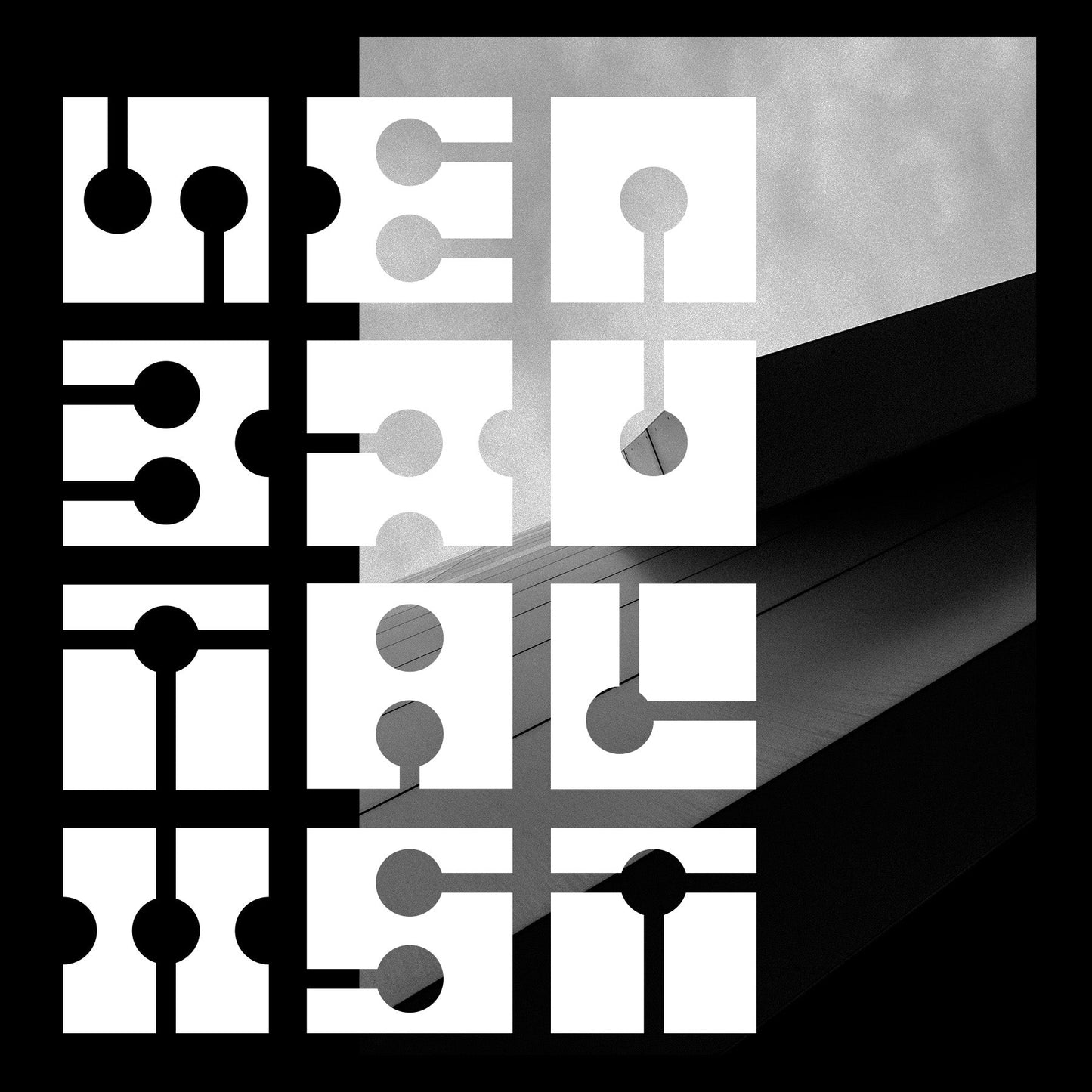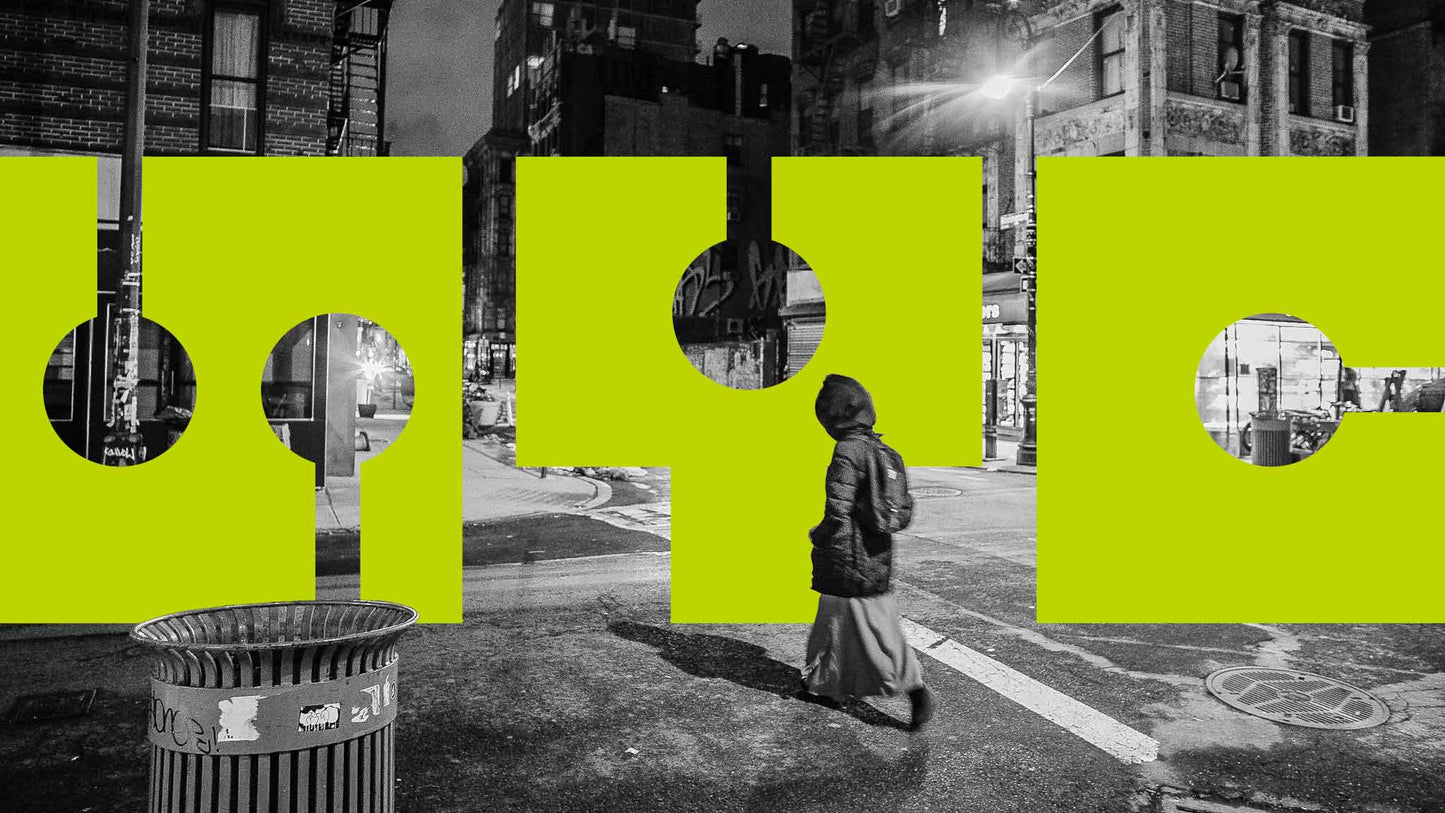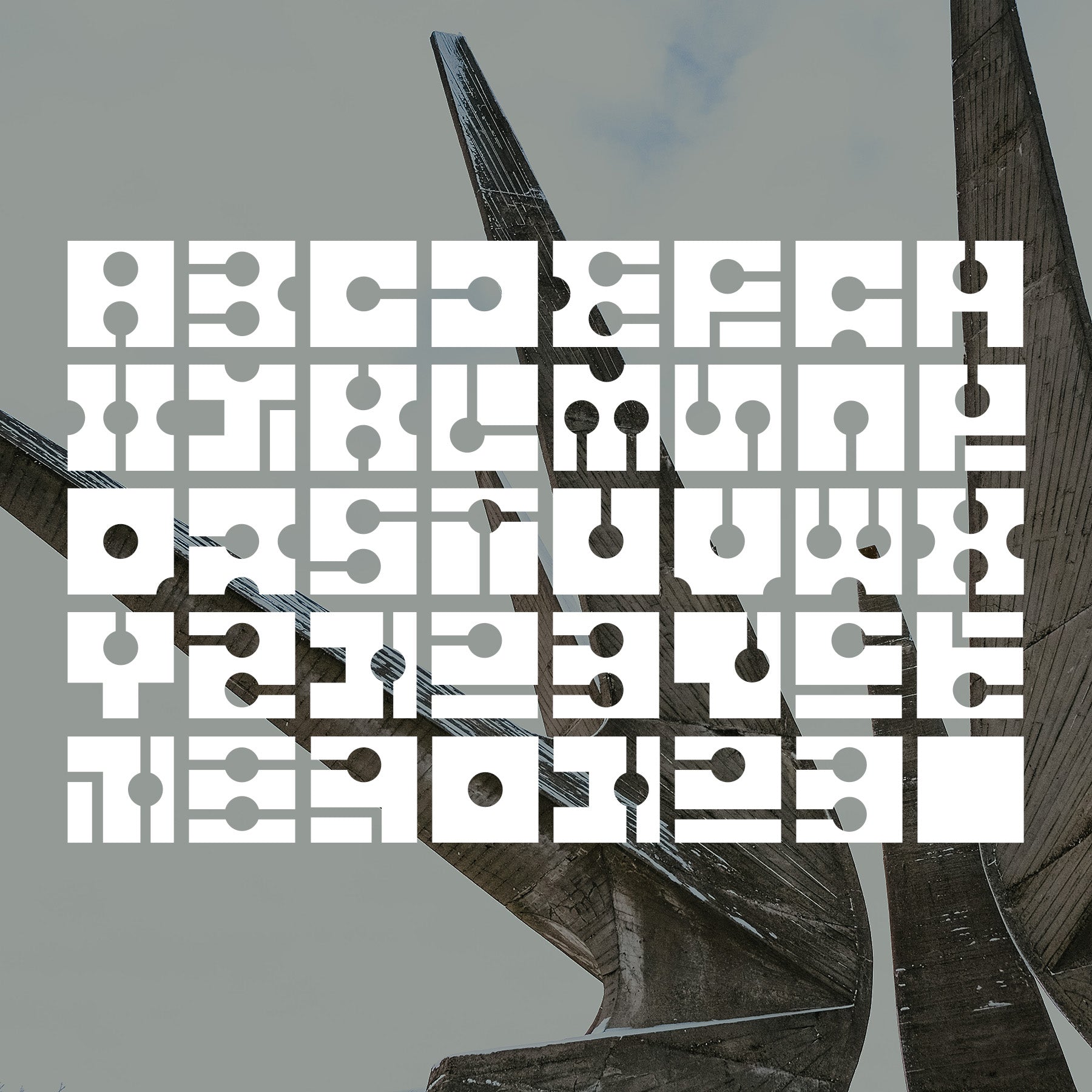
Neo Brutalist Display Font
A weaponized grid of letterforms. Forged in concrete dreams and digital rebellion.
Neo Brutalist is a downloadable display font designed for those who break the system and build their own. This is more than typography — it’s an architecture of resistance. Modular. Monolithic. Unapologetic.
Inspired by the hard edges of Brutalist architecture and filtered through a cybernetic lens, each glyph lives inside a brutal square — sharp, futuristic, and defiant. Built for posters, streetwear drops, zines, album art, and anything that needs to hit hard and haunt the grid.
- Full uppercase character set
- Numbers & basic punctuation
Designed by secret-cache, 2023